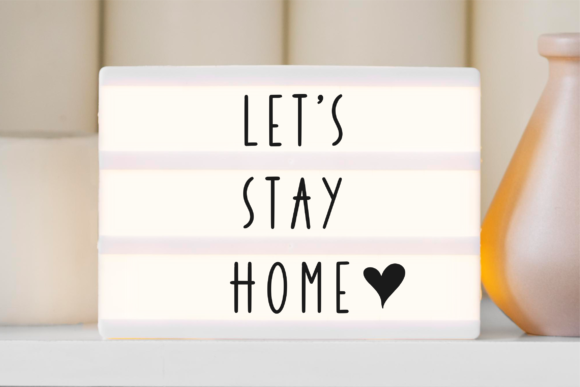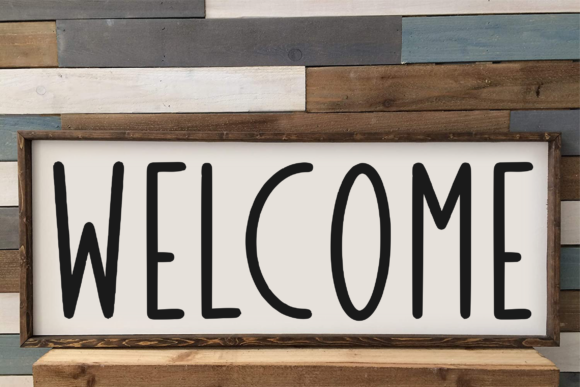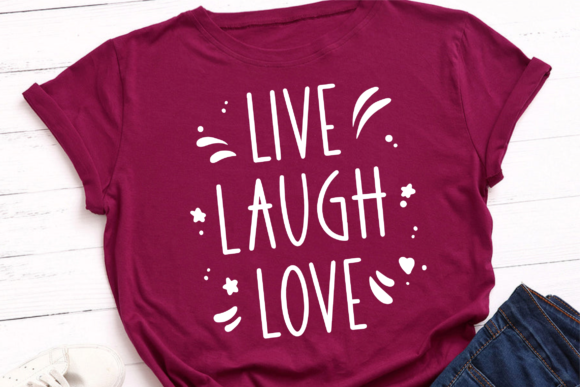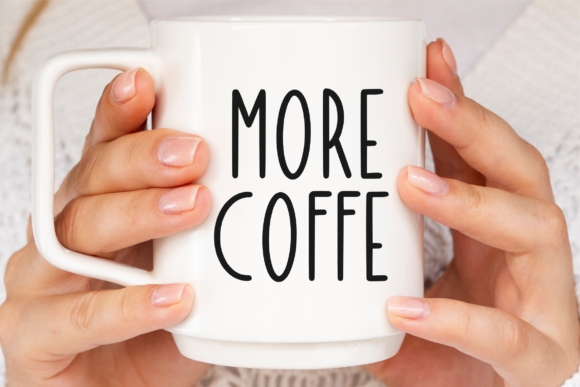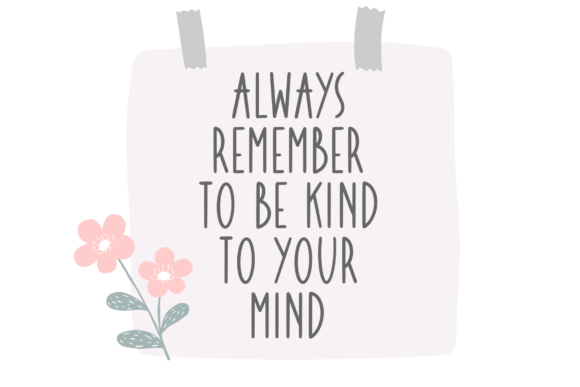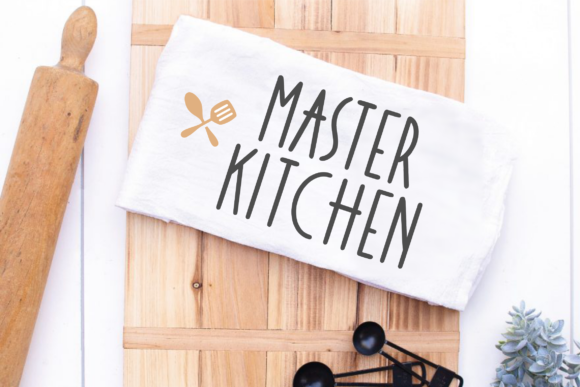
Introduction to Mailhome Font
Have you ever found yourself staring at a blank canvas, eager to bring your creative project to life, only to be halted by the perfect font? For designers, this is a common dilemma. But what if you had a font that could effortlessly elevate your designs, no matter the topic or style? Enter the Mailhome Font – a tall, simple, and adaptable handwritten font that’s poised to become your new go-to design resource.
With its high-quality, free download, and transparent background, the Mailhome Font is an invaluable asset for designers seeking to add a touch of personality to their work. Whether you’re creating a logo, social media graphics, or a promotional brochure, this font has the potential to transform your designs and make them stand out from the crowd.
- Mailhome Font is ideal for use in digital and print media, including logos, business cards, and marketing materials.
- Unique characteristics include elegant and modern typography, perfect for making a statement in your design projects.
- ✨ Clean and modern design aesthetic that’s perfect for a wide range of creative projects
Overall, I’m impressed with the Mailhome Font. Its modern design and high level of customizability make it a great addition to any designer’s toolkit. While it may have a few limitations, I think it’s well worth the free download – and I’m excited to see how it can elevate my future creative projects.
Mailhome Font is commonly used in a variety of design projects, including:
- Logo designs